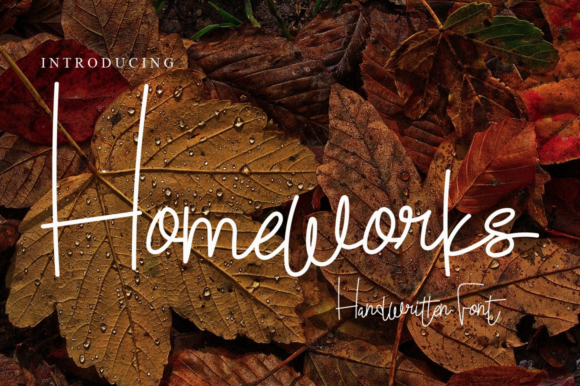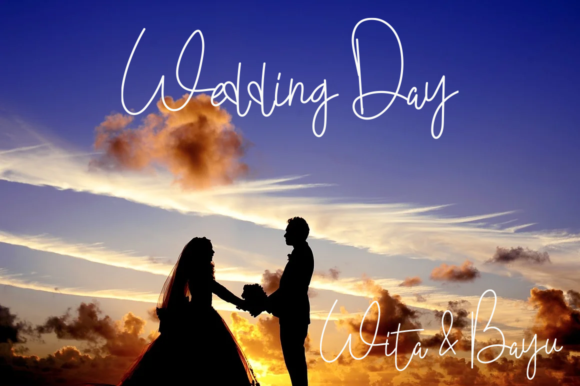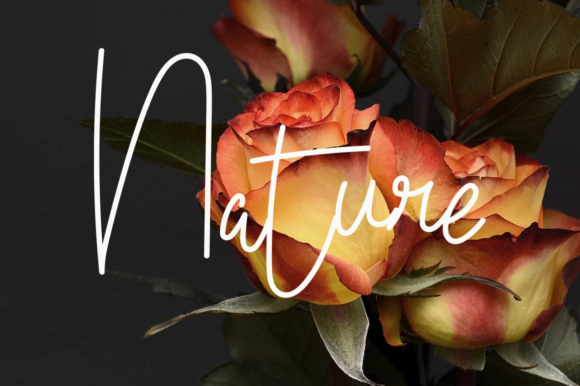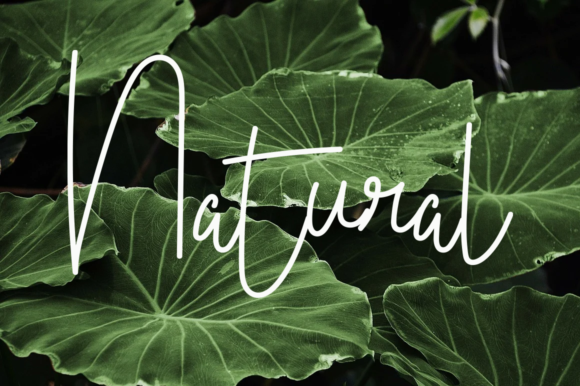
About Homeworks Font
Homeworks is a delicate and thin script font with a relaxed theme, featuring a lovely style. No matter the topic, this font will be an incredibly asset to your fonts’ library, as it has the potential to elevate any creation.